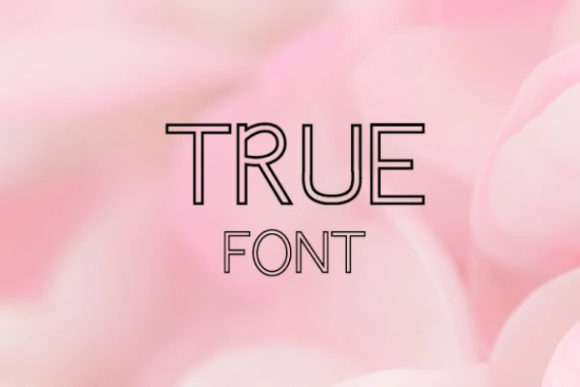
True Font
Feast your eyes on True Font, a display font that will ignite your creativity and leave you spellbound. Its classic style is masterfully blended with a touch of modern elegance, resulting in a font that exudes both sophistication and approachability. With True Font at your fingertips, your designs will radiate with a captivating charm that's sure to win hearts.
Step into a world of endless possibilities, where True Font's unique letterforms dance across your projects, painting them with a touch of whimsy and wonder. From eye-catching headlines to enchanting invitations, this font will elevate your designs to new heights. Its versatility knows no bounds, seamlessly adapting to a myriad of styles and themes.
True Font's smooth curves and graceful lines evoke a sense of warmth and joy, making it perfect for adding a personal touch to your creations. Its classic appeal ensures timeless elegance, while its modern twist keeps your designs fresh and contemporary.
Let True Font be your creative companion, guiding you on a journey of design excellence. Its versatility will empower you to tackle any project with confidence, knowing that your creations will exude a captivating charm that leaves a lasting impression. Unleash the magic of True Font today, and embark on a creative adventure that knows no bounds.